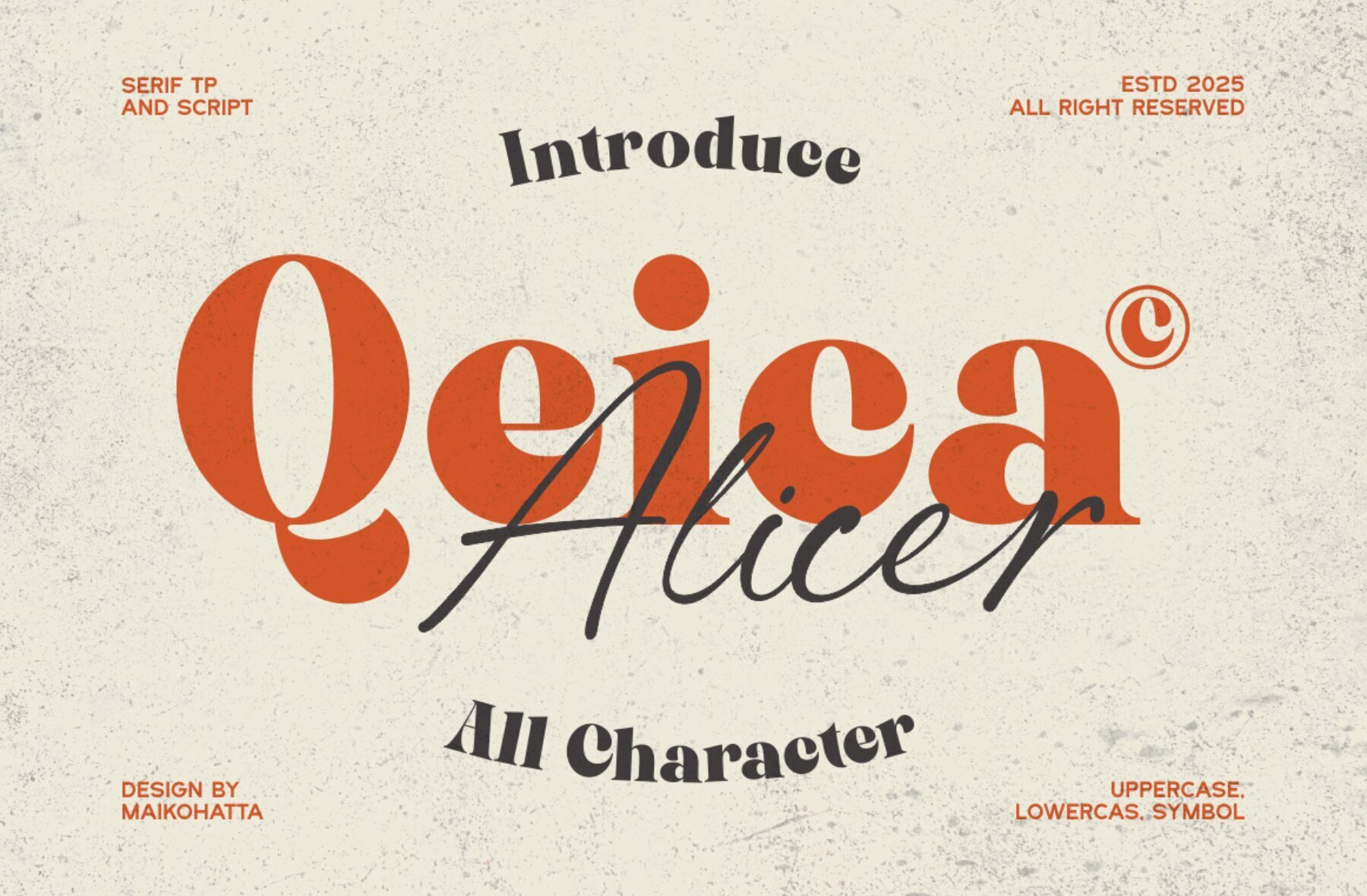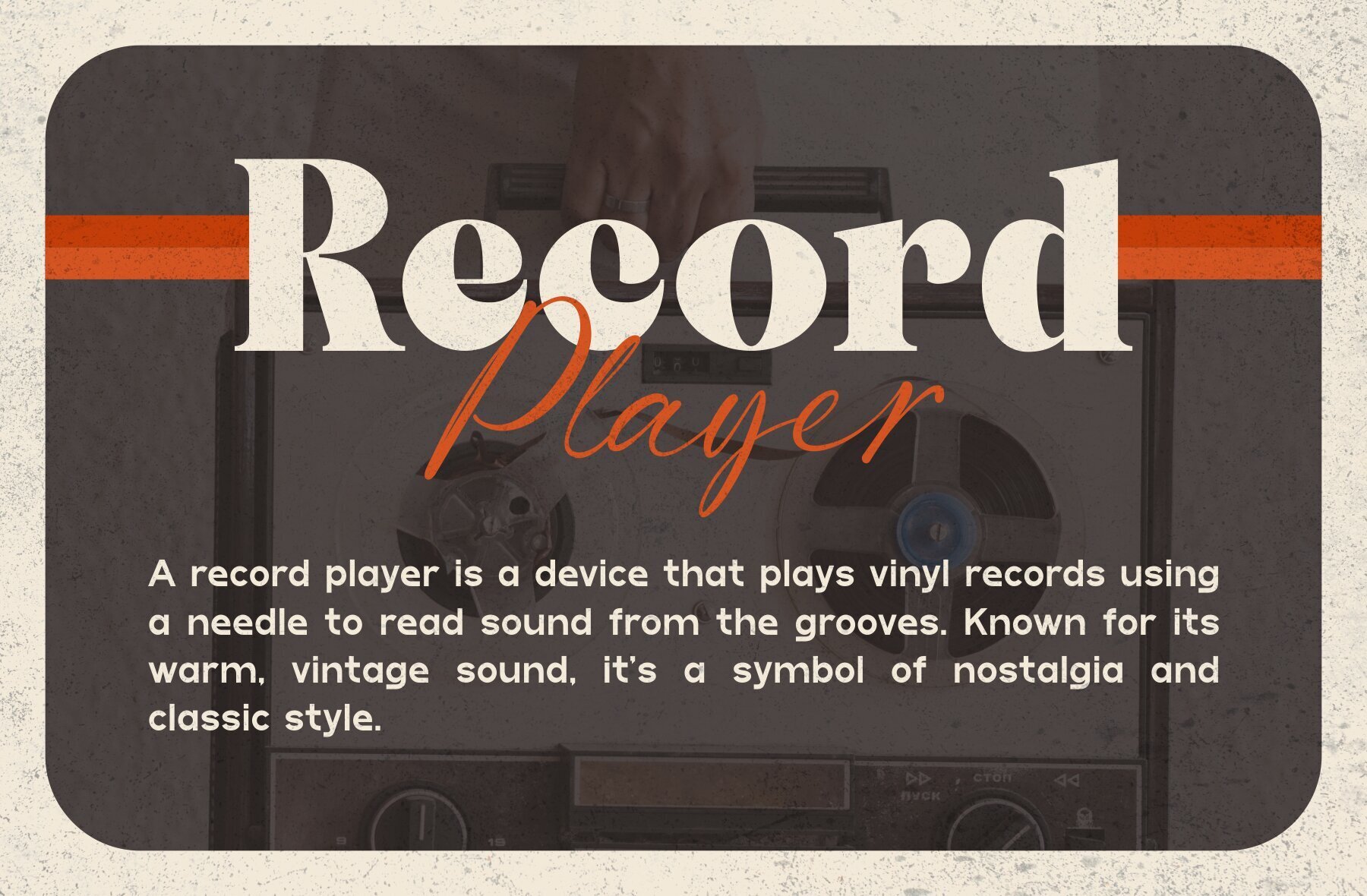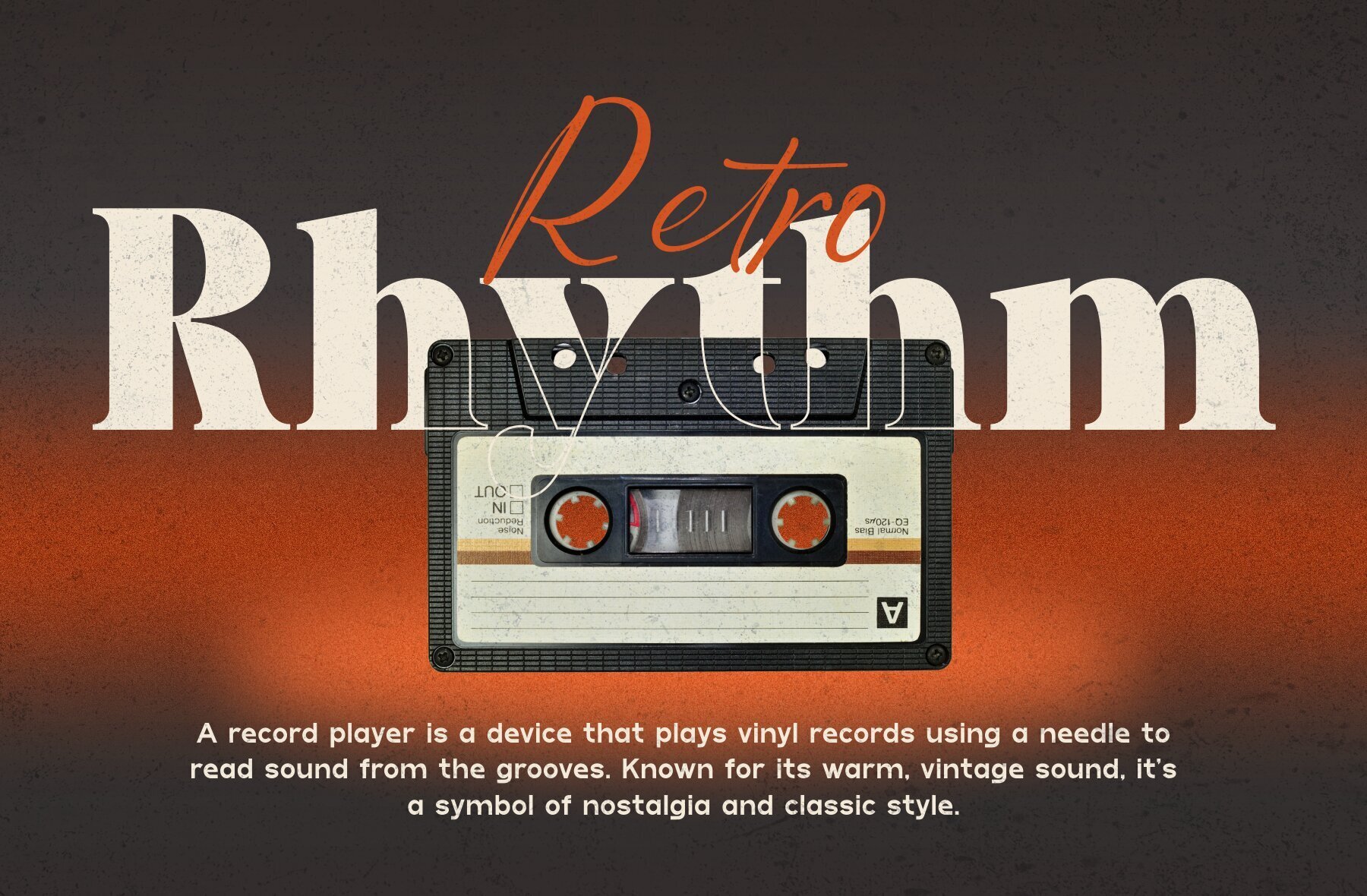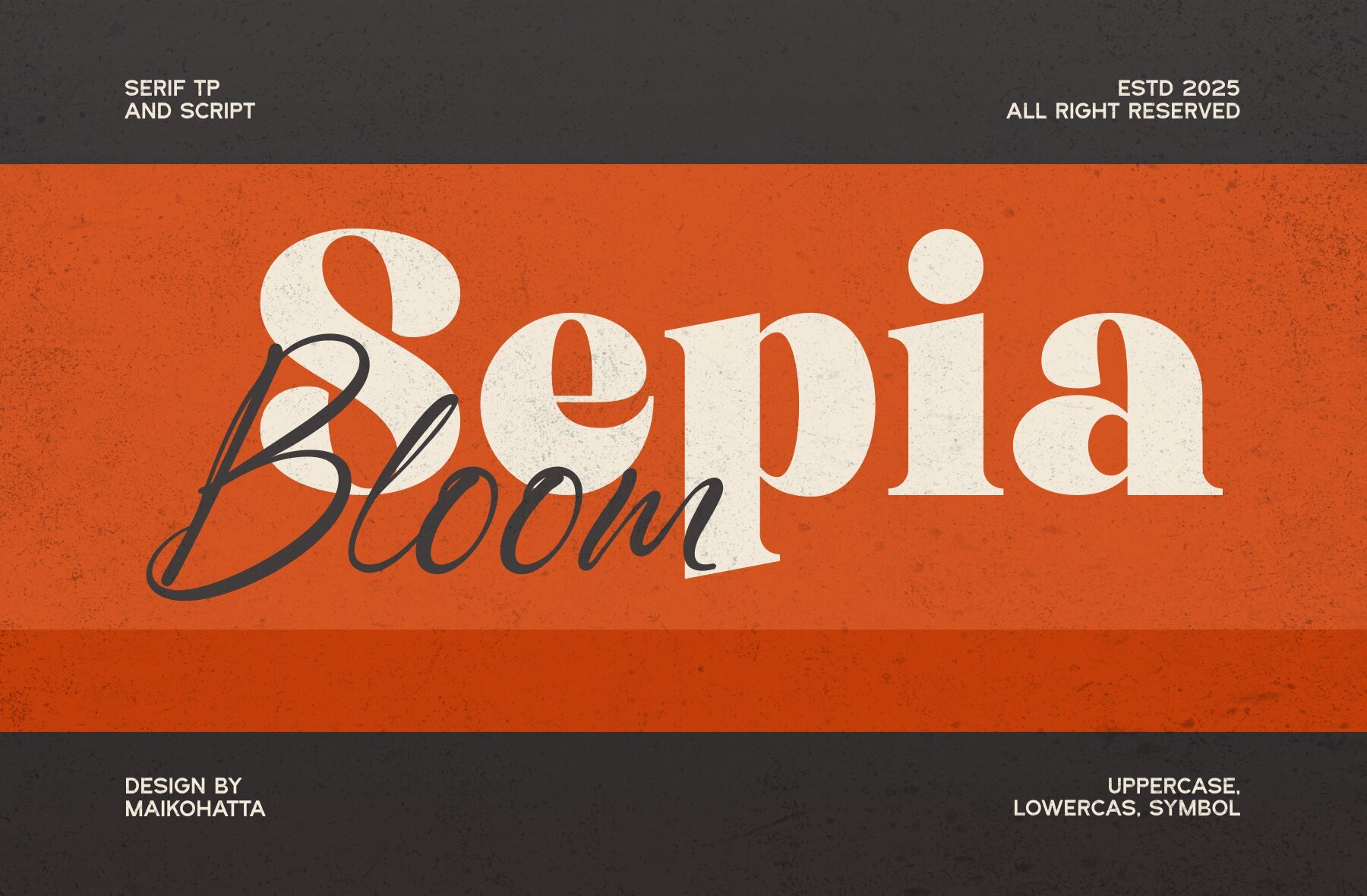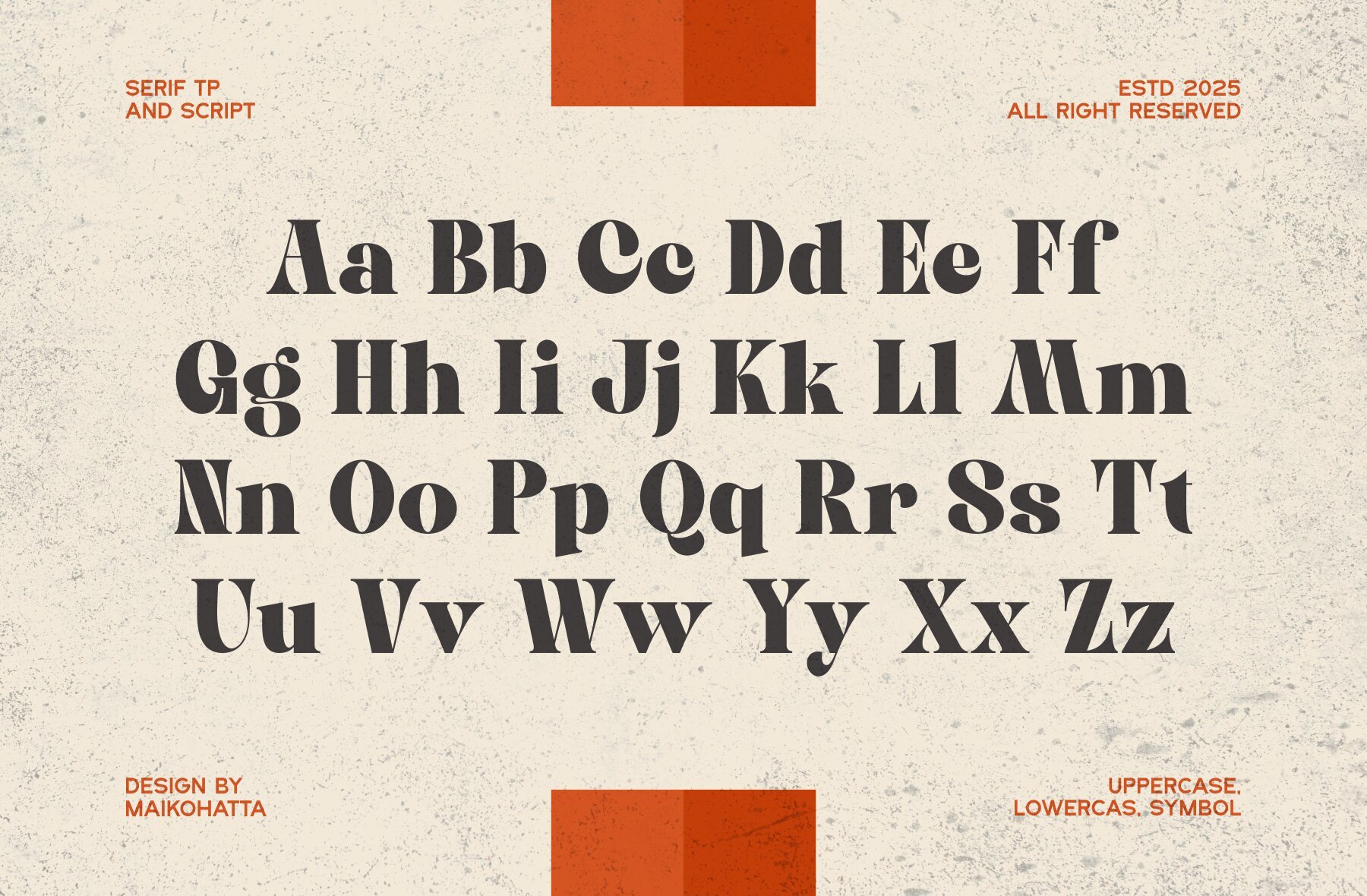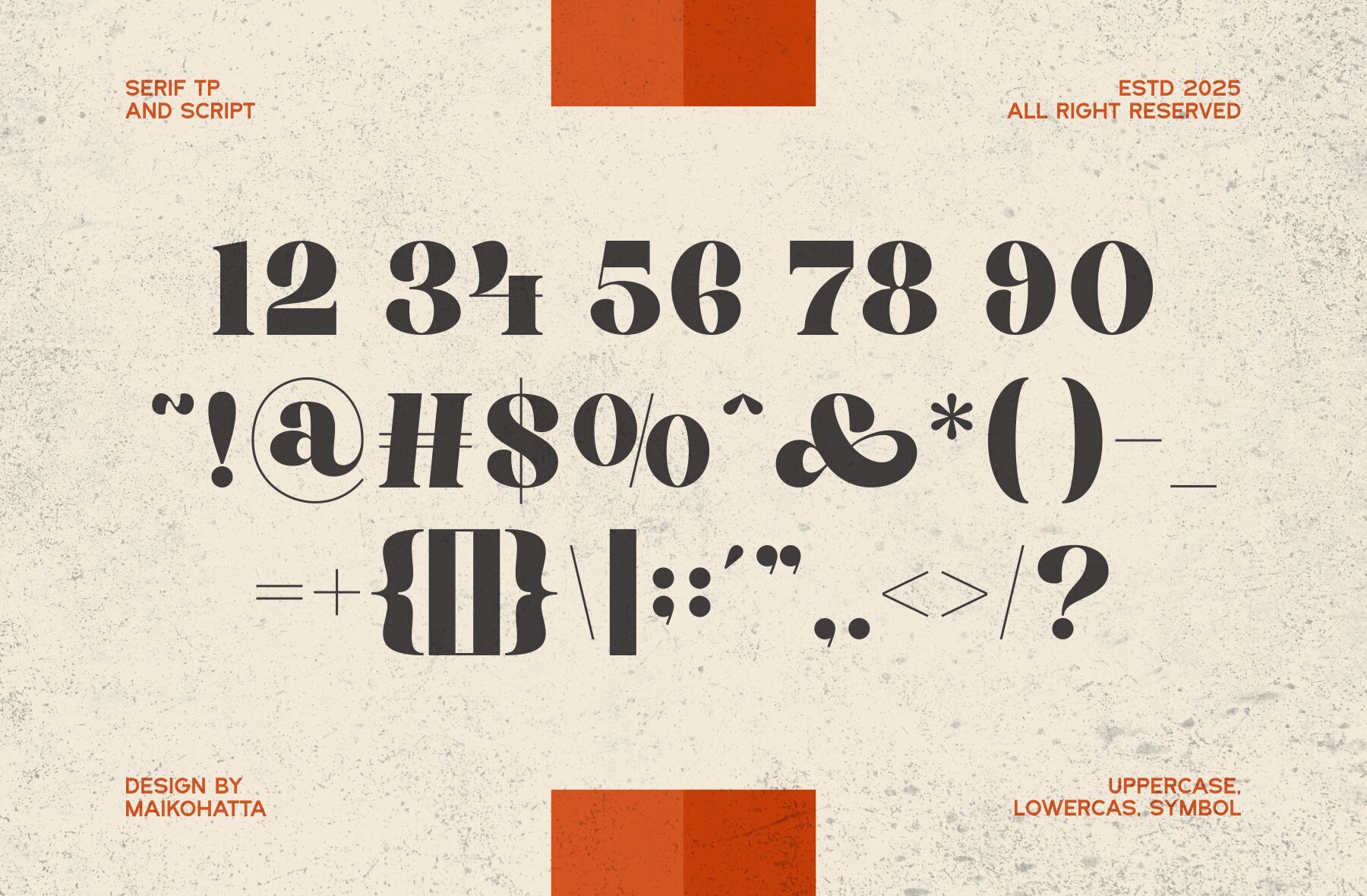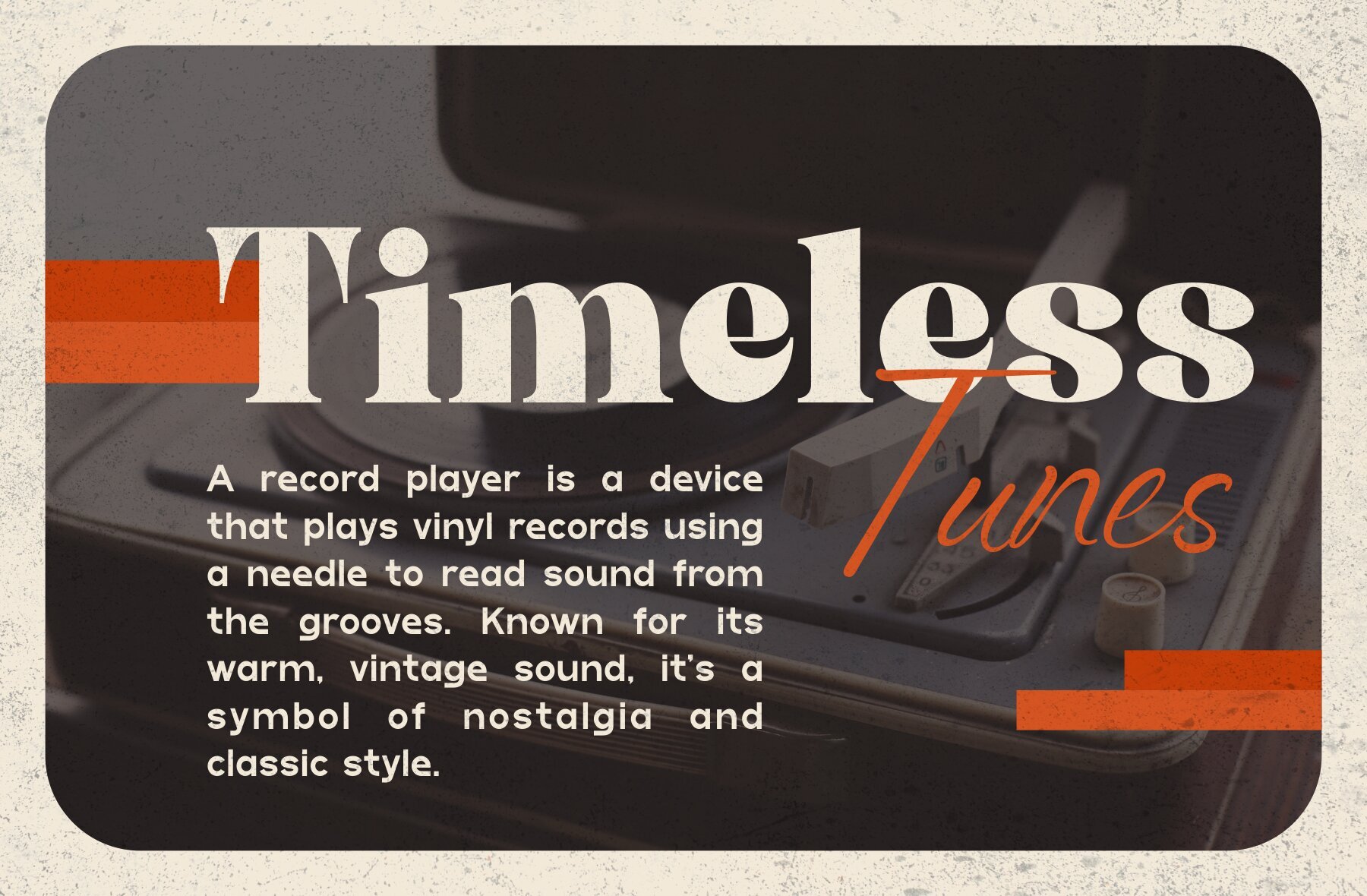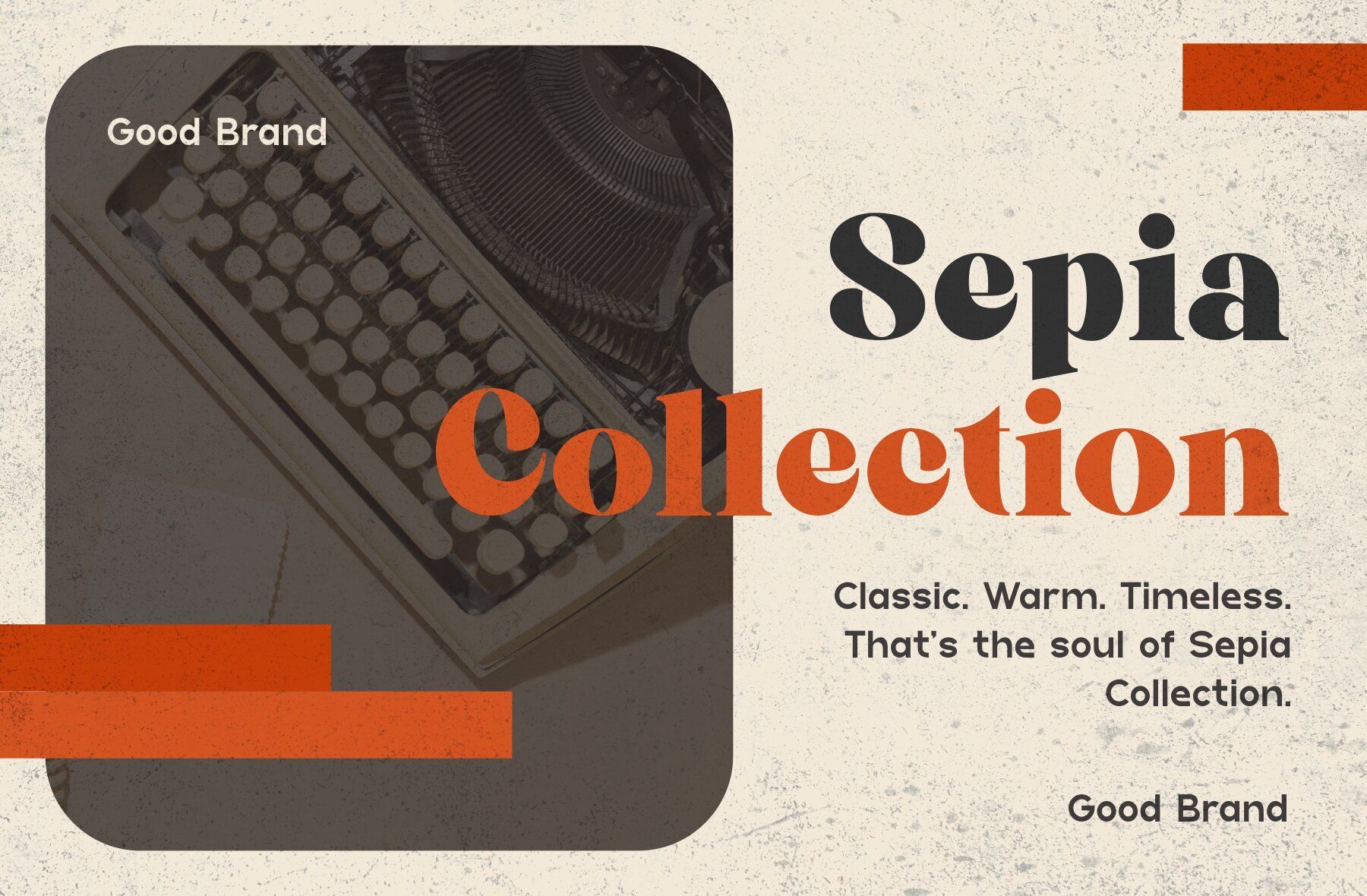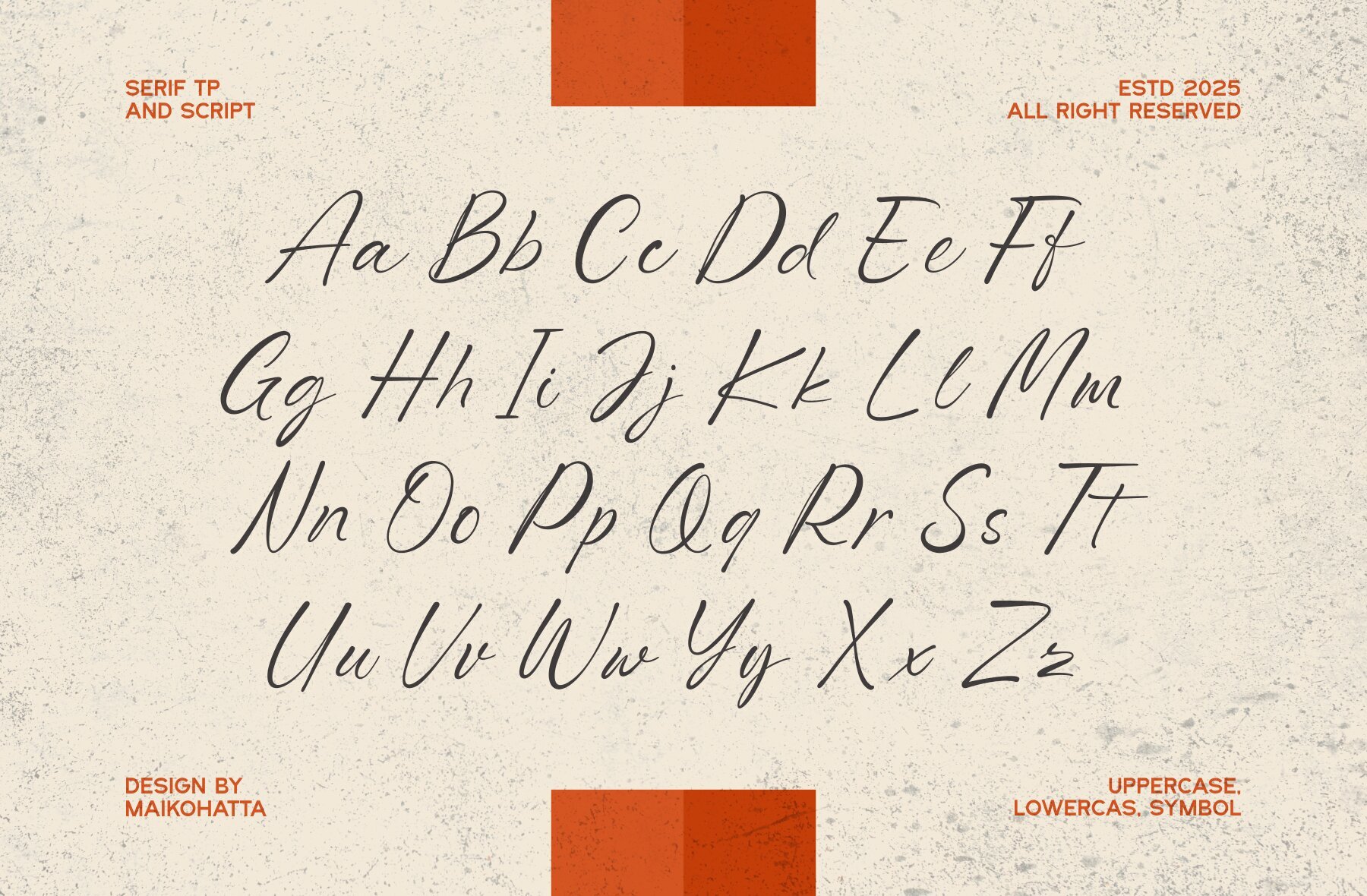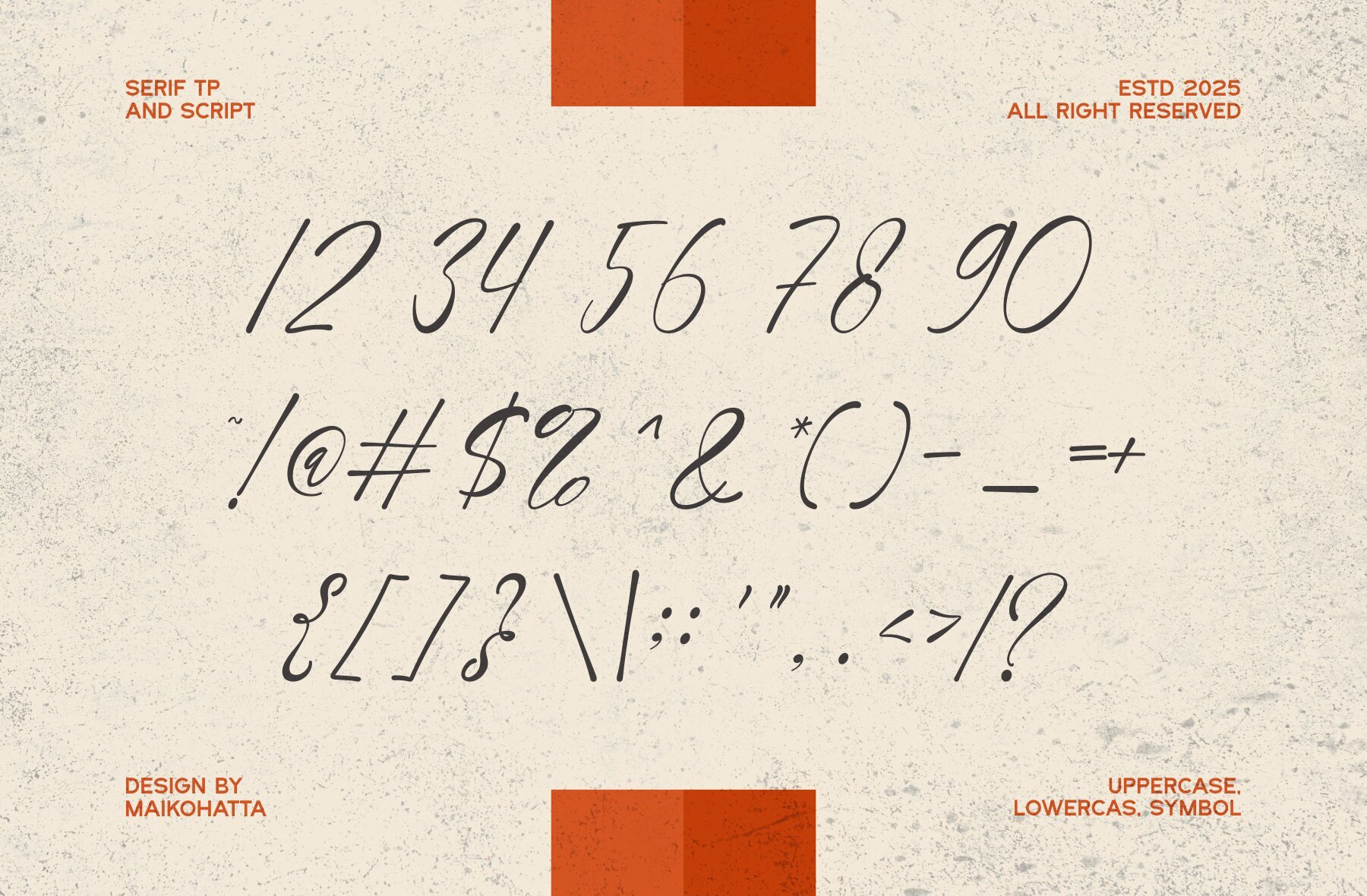
Qeica Font
Qeica is a stylish font duo that embodies modern elegance aligned with timeless character. Comprising a refined serif and a graceful script, this typeface offers a harmonious blend of structure and flair, perfect for any creative endeavor. Whether designing luxurious brands, editorial layouts, or romantic stationery, Qeica provides the versatility and charm to make your message unforgettable. With Qeica, each letter narrates a sophisticated, stylish, and irresistibly elegant story.Qeica: A Refined Font Duo